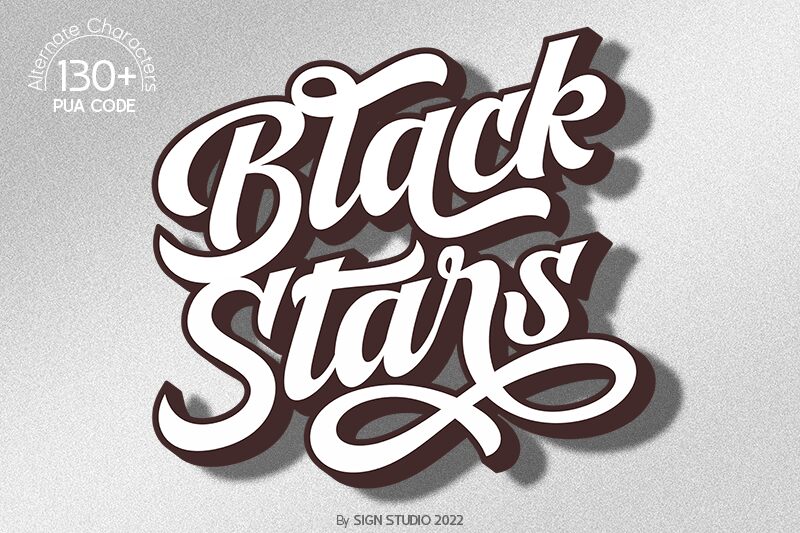
Black Stars is a captivating handwritten font designed by Sign Studio. Its bold weight adds an extra touch of drama to any project, making it ideal for eye-catching headlines, posters, and packaging designs. This versatile typeface brings a unique charm to invitations, greeting cards, and social media graphics. With its distinctive strokes and artistic flair, Black Stars shines brightly in logo designs, book covers, and album artworks. Whether you're aiming for a modern or vintage look, this font will make your content stand out from the crowd with its expressive and stylish appeal.
Black Stars
Black Stars Font by Sign Studio
Sign Studio